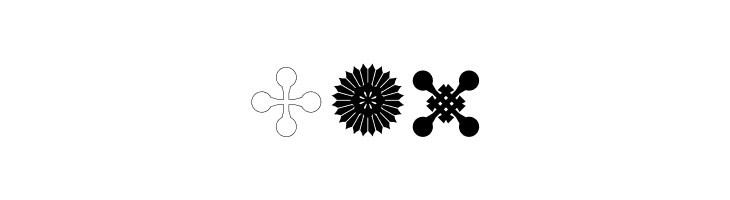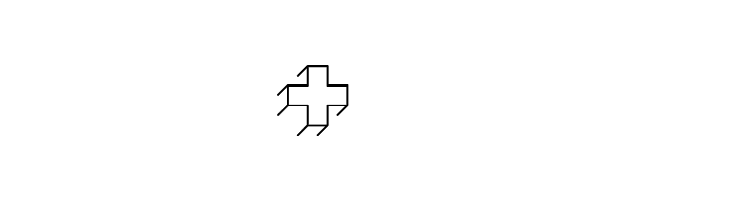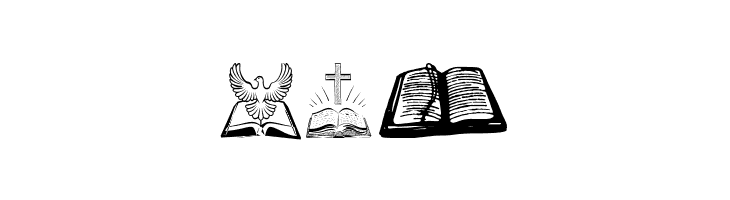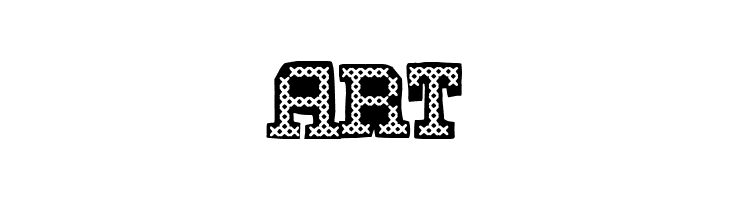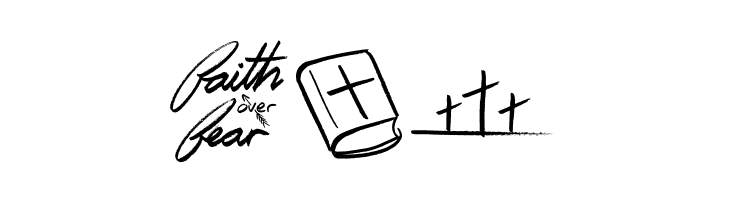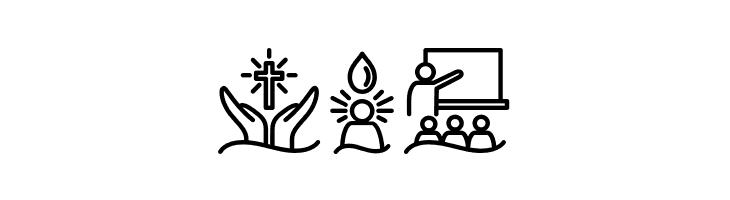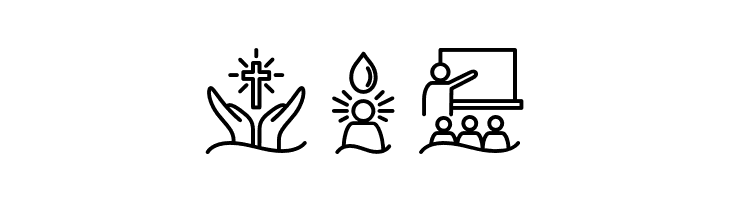
Ornamental dingbat font with floral and geometric motifs.
A bold, decorative font with a vintage circus-inspired style.
A playful and elegant collection of Easter-themed icons, perfect for festive designs.
A decorative collection of diverse cross symbols with intricate designs.
A decorative pattern of geometric shapes with modern and abstract elements.
A religious-themed dingbat font with Bible and Christian iconography.
A bold, decorative font with a punk-inspired cross pattern.
A collection of Christian-themed designs with handwritten and decorative elements.
Line art icon set with religious and community motifs.
Monoline religious and community icon set with a minimal, decorative style.